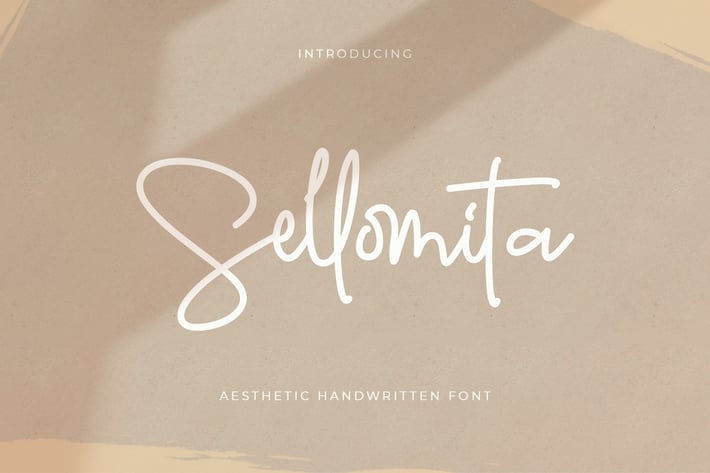
Sellomita - Handwritten Font
Introducing Sellomita Font
Sellomita is an elegant signature font. Its casual charm makes it appear wonderfully down-to-earth, readable and, ultimately, incredibly versatile. Sellomita will look outstanding in any context, whether itβs being used on busy backgrounds or as a standalone headline!